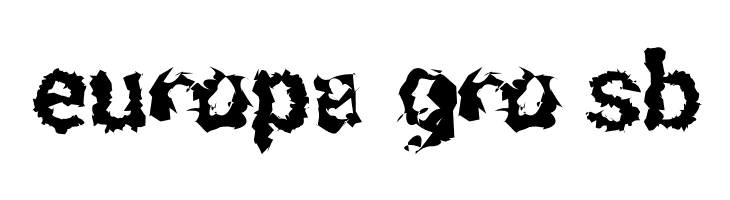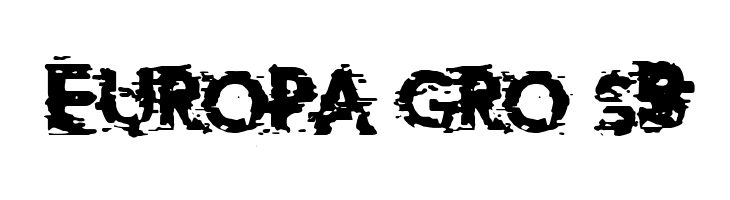
A bold, contour-styled font with a modern and decorative flair.
A bold, textured font with a distressed, hand-crafted appearance.
A semi-condensed, medium-weight serif font with clear, balanced letterforms.
A semi-condensed, extra bold italic serif typeface with a classic yet modern appeal.
A clean, condensed, and modern font with thin strokes and a minimalist design.
A sleek, extra condensed serif font with a light weight and elegant style.
A classic serif typeface with a condensed structure and medium weight, offering elegance and readability.
A bold, glitchy font with fragmented, chaotic letterforms.